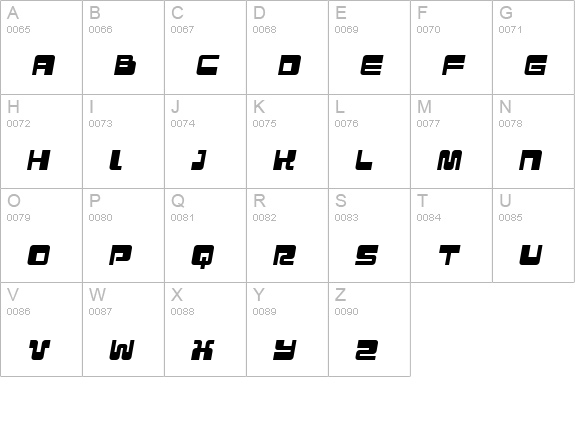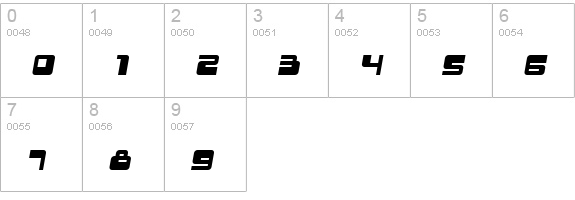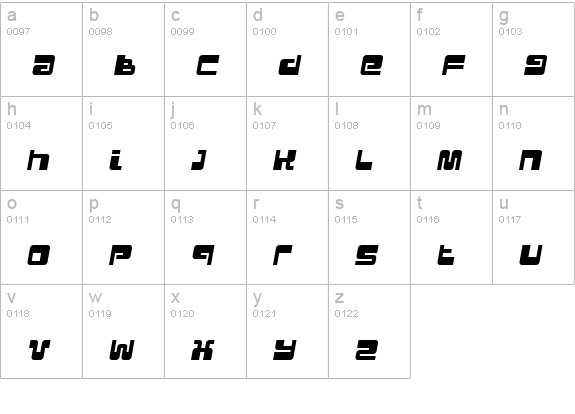
Urban Italic is a distinctive, italic variant in the Urban typeface family \xE2\x80\x94 well suited to design and typography projects.
Urban Italic is a bold and stylish font that effortlessly captures the essence of urban life. Its sleek and modern design exudes confidence and sophistication, making it the perfect choice for any project that seeks to make a bold statement. The italicized letters add a touch of elegance and dynamism, giving your text a sense of movement and energy. This versatile font is ideal for a wide range of applications, from branding and advertising to editorial design and social media graphics. It brings a touch of urban flair to any design, giving it a contemporary and trendy look. Whether you're creating a logo for a hip clothing brand, designing a poster for a music festival, or crafting a social media post that demands attention, Urban Italic is the font that will make your message stand out. One of the best things about Urban Italic is that it is free and readily available for download at FontsMarket.com. This means that you can easily access this incredible font and start using it in your projects right away, without having to worry about any additional costs. FontsMarket.com provides a convenient and user-friendly platform where you can explore a vast collection of fonts, and Urban Italic is just one of the many treasures waiting to be discovered. So, if you're looking to add a touch of urban sophistication to your designs, look no further than Urban Italic. Download it for free at FontsMarket.com and let your creativity run wild. With its bold and dynamic style, this font is sure to leave a lasting impression on your audience and elevate your designs to new heights.